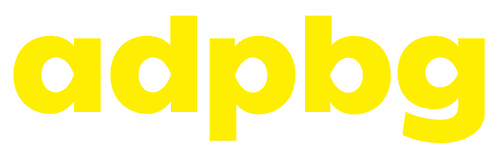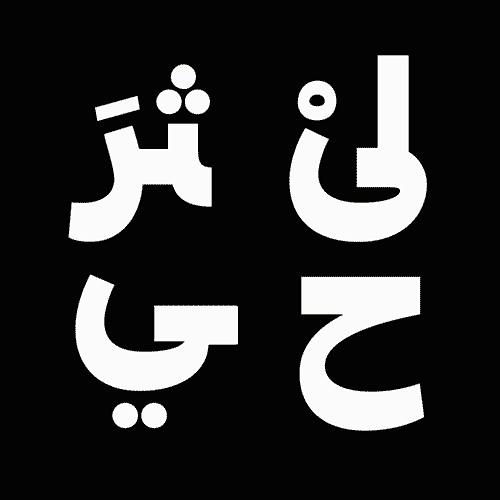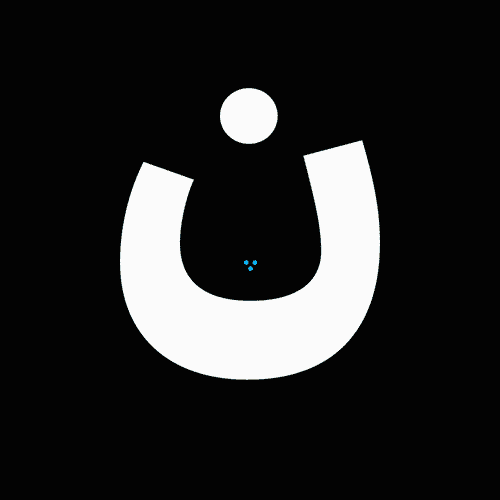
Ping Arabic Font Family
Ping Arabic comes in nine weights ranging from Hairline to Black.
While the medium weights are meant for text purposes,
the extreme surrounding weights are intended for display sizes.
- Ping Arabic is a modern typeface with organic and geometric forms. It is the counterpart of Ping published by our sister foundry Typotheque in 2019. Ping Arabic sets out to explore a hybrid of geometric and organic forms and, for that, draws influence from both the fluid and the solid Arabic constructions. Ping Arabic's decidedly abrupt reductionist strokes and abstracted forms reveal the geometric essence of the letterforms without discarding the organic aspect of writing. Another important characteristic is the large heads of the Arabic letters compared to their relatively short stems and descending bodies. The result is a rational typeface with a warm and welcoming character.